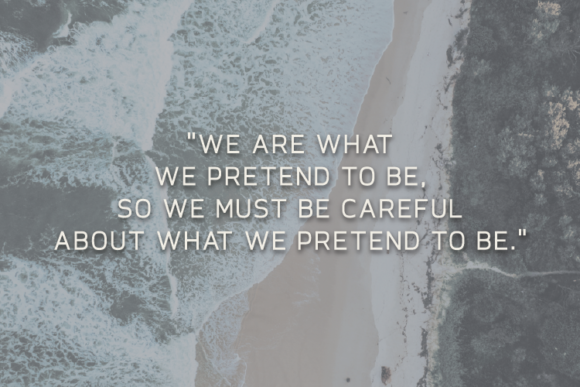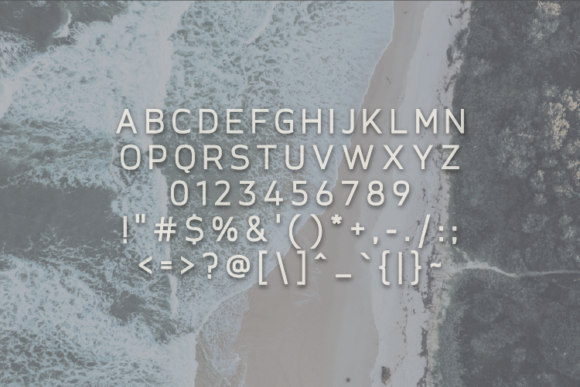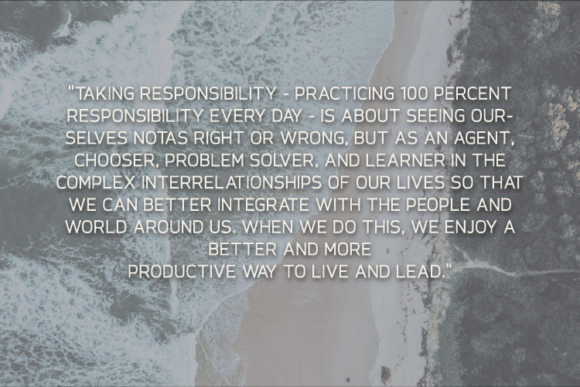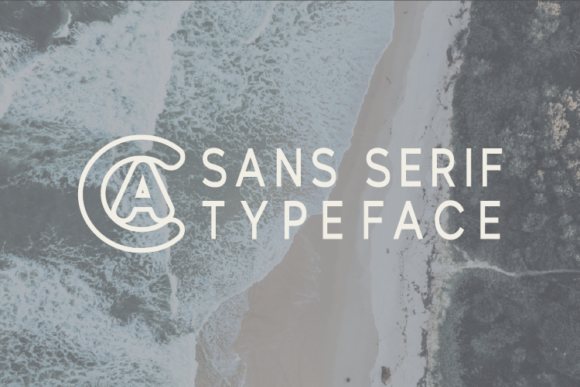
Introducing Conetto Font: The Ultimate Modern Sans Serif Typeface
Are you on the hunt for a font that exudes modernity and class? Look no further than Conetto Font! This stunning sans serif typeface is making waves in the design world, and for good reason. Its sleek lines, clean aesthetic, and versatility make it the perfect choice for a wide range of design projects. In this article, we’ll dive into the world of Conetto Font, exploring its features, uses, and benefits for designers and crafters alike.
A Modern and Classy Sans Serif Typeface
Conetto Font is a masterclass in modern design. Its sans serif style gives it a clean and contemporary look that’s perfect for designers who want to create a lasting impression. The font’s sleek lines and curves make it easy to read, while its unique character set ensures that your designs stand out from the crowd. Whether you’re working on a logo, invitation, or advertisement, Conetto Font is the perfect choice for creating a professional and stylish look.
Extremely Versatile: Perfect for a Wide Range of Design Projects
One of the standout features of Conetto Font is its incredible versatility. This font can be used for a wide range of design projects, from logos and branding to weddings, invitations, quotes, and advertisements. Its clean and modern aesthetic makes it perfect for print materials, such as magazines, brochures, and flyers. Additionally, Conetto Font can be used for digital projects, including social media graphics, website headers, and more.
Conetto Font is an excellent choice for logos and branding projects. Its modern and classy aesthetic makes it perfect for creating a professional and stylish look that will help your brand stand out. The font’s unique character set and sleek lines ensure that your logo will be memorable and easy to recognize. Whether you’re starting a new business or rebranding an existing one, Conetto Font is the perfect choice for creating a lasting impression.
Ideal for Weddings and Invitations
Conetto Font is also perfect for weddings and invitations. Its elegant and sophisticated aesthetic makes it ideal for creating beautiful and memorable stationery. Whether you’re designing wedding invitations, save-the-date cards, or thank-you notes, Conetto Font is the perfect choice for creating a stylish and professional look.
Great for Quotes and Advertisements
Conetto Font is also well-suited for quotes and advertisements. Its clean and modern aesthetic makes it perfect for creating eye-catching and memorable designs. Whether you’re designing a quote poster, a social media graphic, or an advertisement, Conetto Font is the perfect choice for grabbing attention and conveying your message.
So, what are the benefits of using Conetto Font for designers and crafters? Here are just a few:
- Easy to read: Conetto Font is incredibly easy to read, making it perfect for body text and captions.
- Versatile: Conetto Font can be used for a wide range of design projects, from logos and branding to weddings and invitations.
- Modern and classy: Conetto Font’s sleek lines and clean aesthetic make it perfect for creating a professional and stylish look.
- Unique character set: Conetto Font’s unique character set ensures that your designs stand out from the crowd.
In conclusion, Conetto Font is a modern and classy sans serif typeface that’s perfect for designers and crafters alike. Its versatility, clean aesthetic, and unique character set make it the perfect choice for a wide range of design projects. Whether you’re working on a logo, invitation, advertisement, or print material, Conetto Font is the perfect choice for creating a professional and stylish look. So why wait? Give Conetto Font a try today and take your designs to the next level!